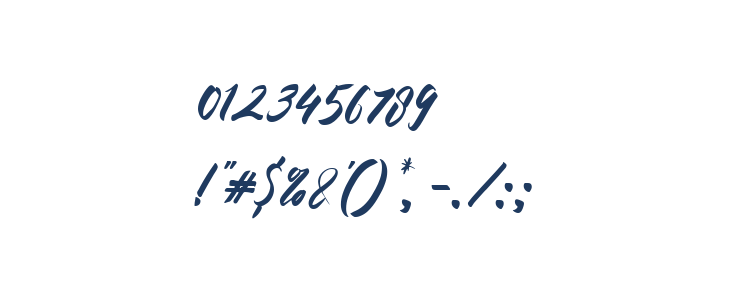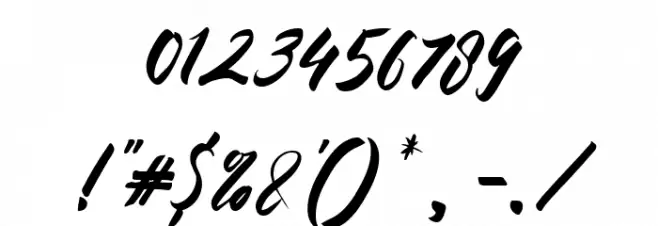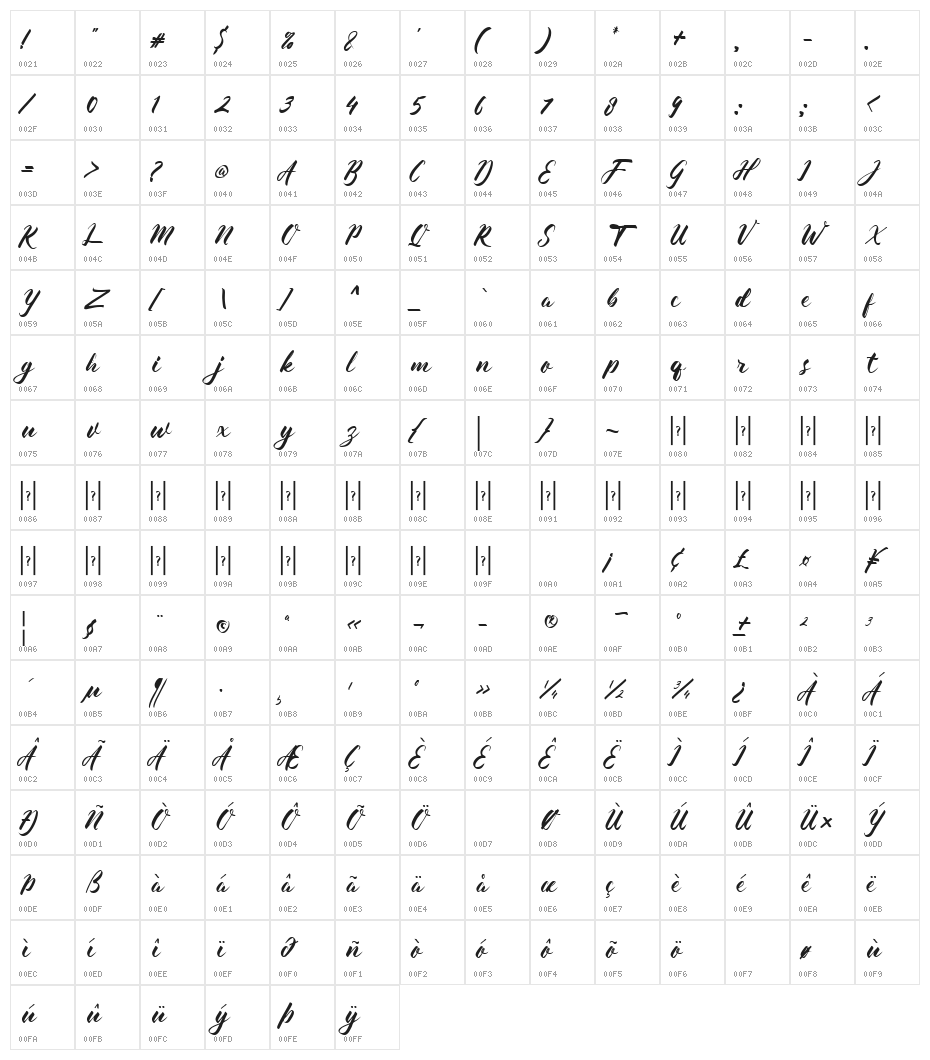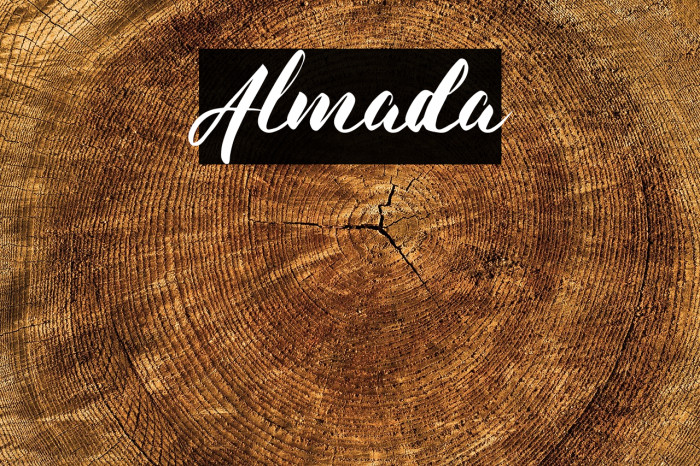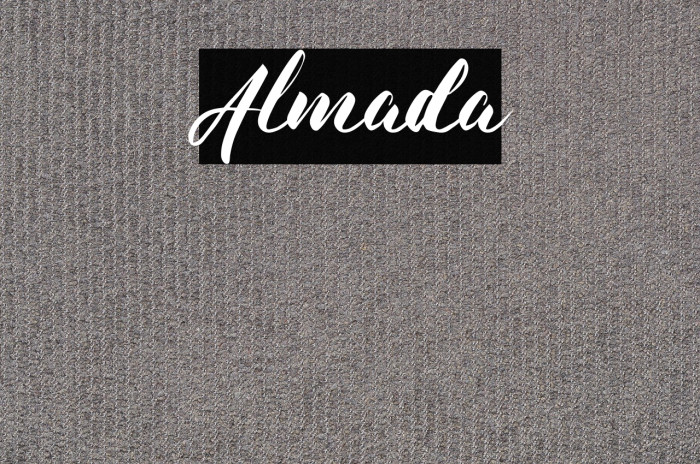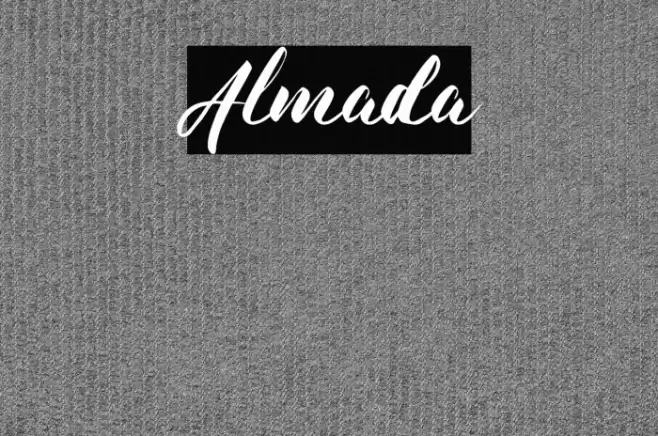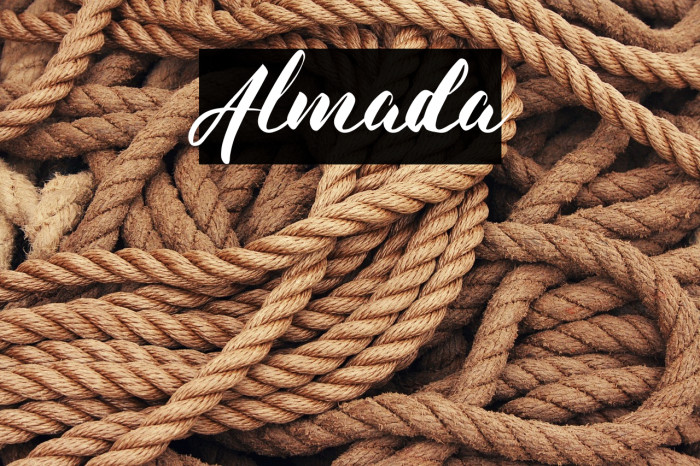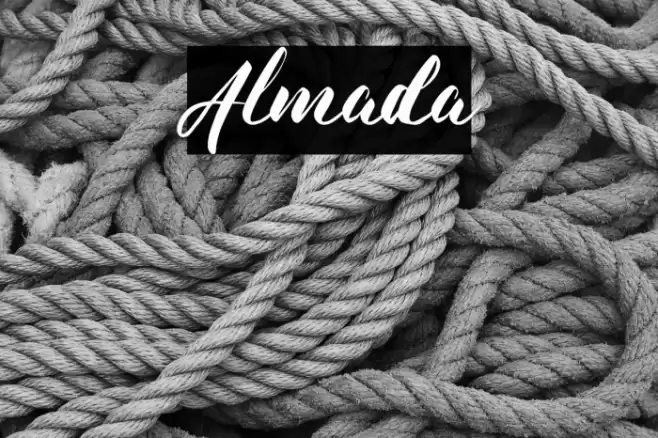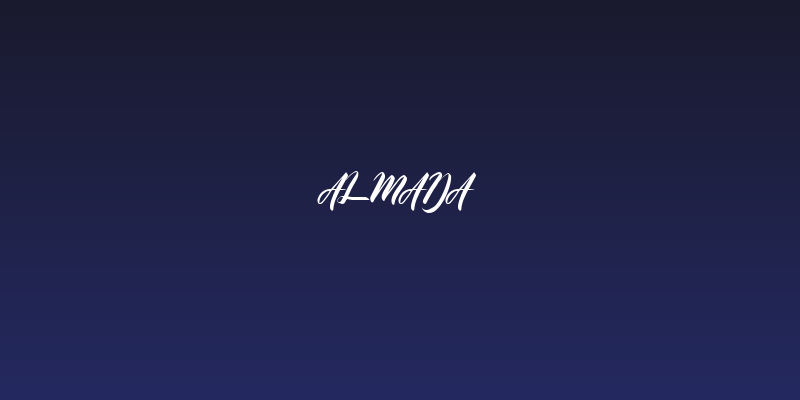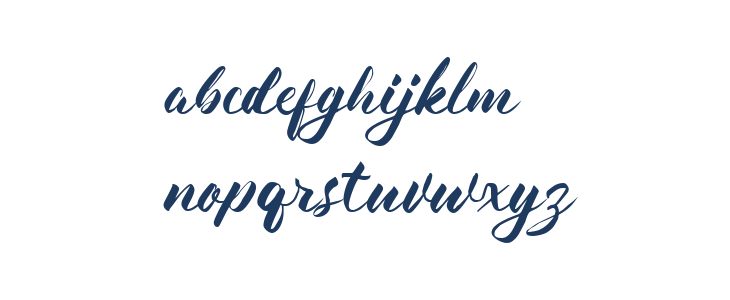
Almada Font
Almada Description
This font features a dynamic and elegant script style, characterized by its fluid, cursive strokes and a sense of movement. The letters are interconnected, creating a harmonious flow that is both sophisticated and expressive. The uppercase letters are bold and prominent, while the lowercase letters maintain a consistent rhythm. The numerals and special characters are designed to complement the overall aesthetic, ensuring versatility across various applications. The font's artistic flair makes it suitable for creative and decorative uses.